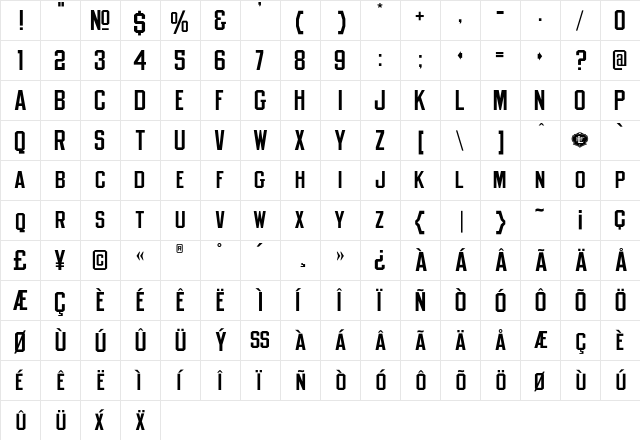
LHFOldBlockCondMed Regular Font Preview
LHFOldBlockCondMed Regular
LHFOldBlockCondMed Regular Font Details
Design Context for LHFOldBlockCondMed Typeface
LHFOldBlockCondMed is a composed and adaptable typeface that performs quietly and consistently across a wide range of design contexts. The condensed width makes it efficient for tight spaces without sacrificing legibility.